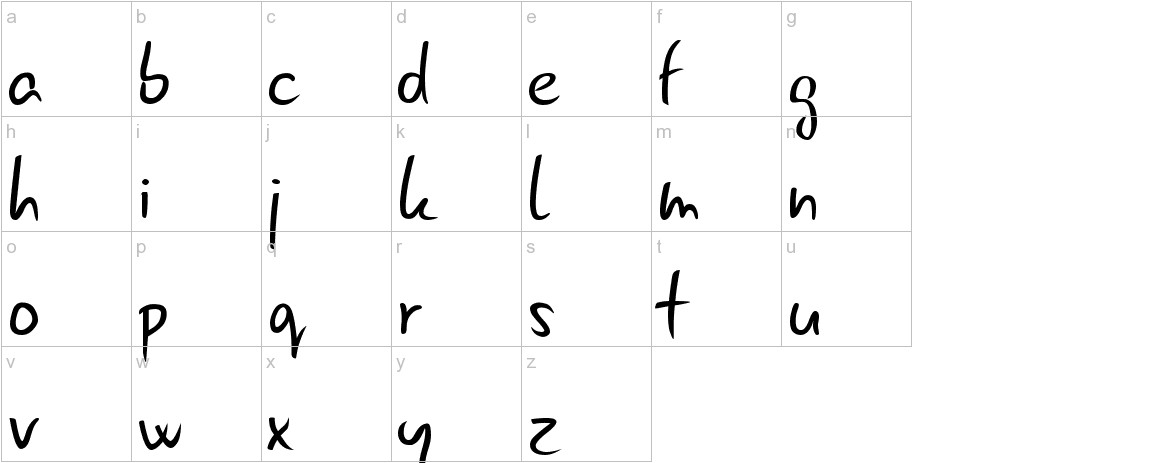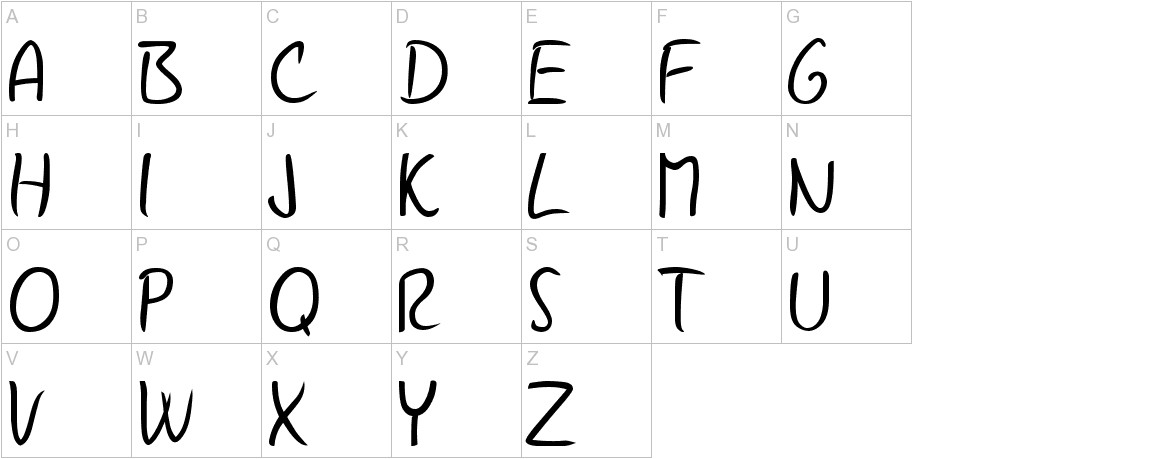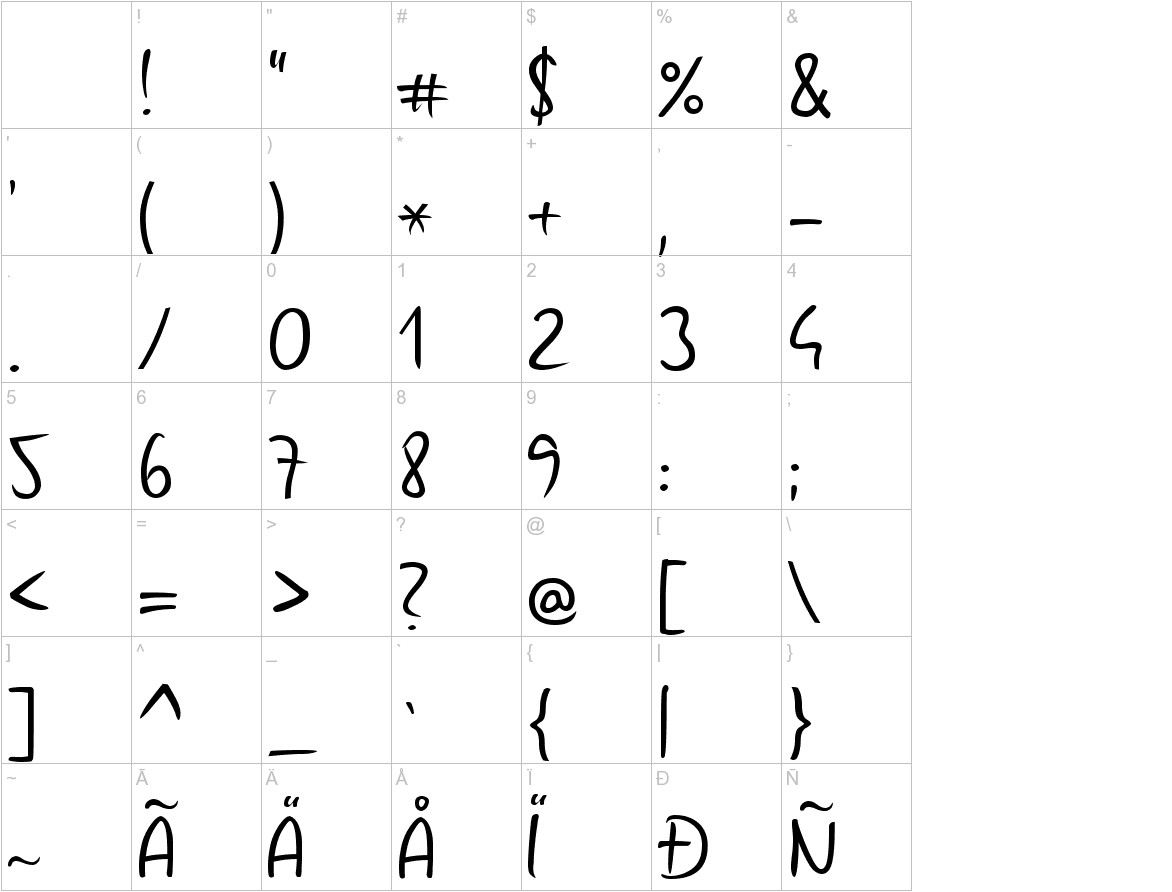
Gunny Rewritten
A revised version of my older font Gunny Handwriting. That's how I really write when I try to make it at least a little bit readable for other people. =) This version is more consistent and it includes more international characters.
Update 2014/02: Fixed apostrophe, modified quotes, parentheses and brackets, modified several Greek letters and kerning, added Cyrillic (Russian) support.